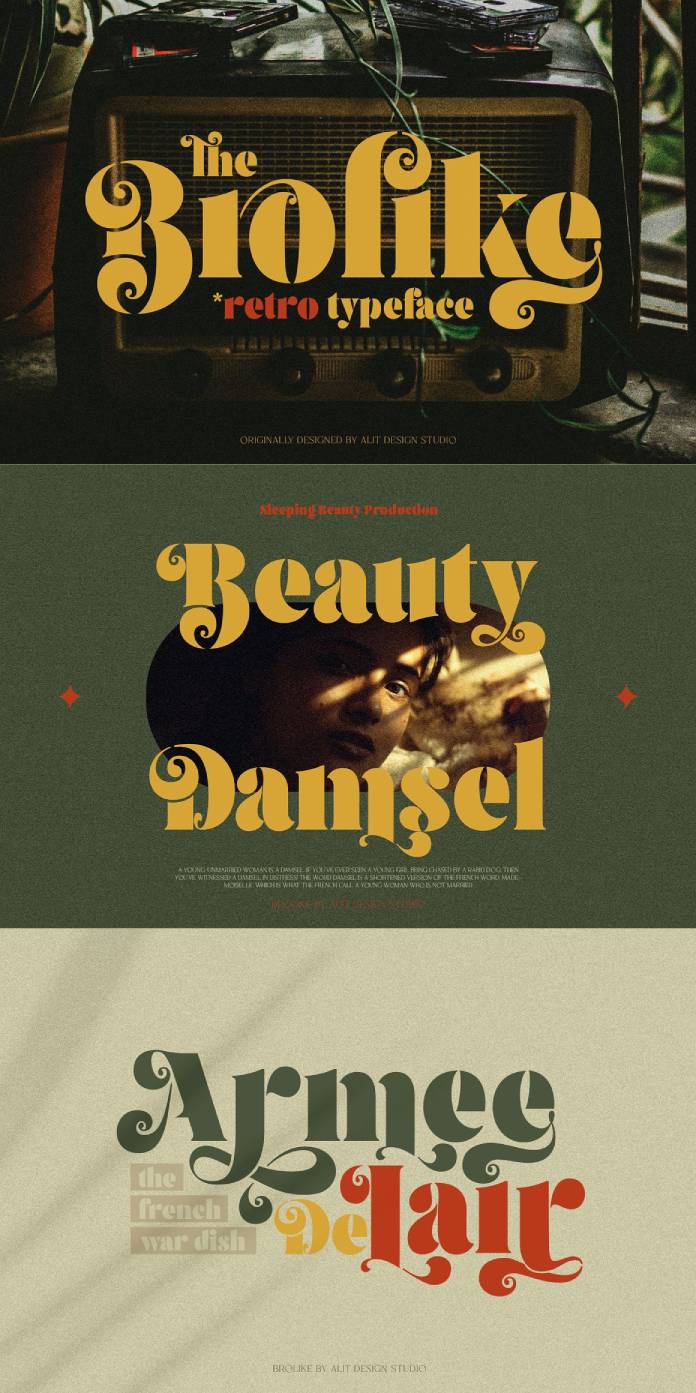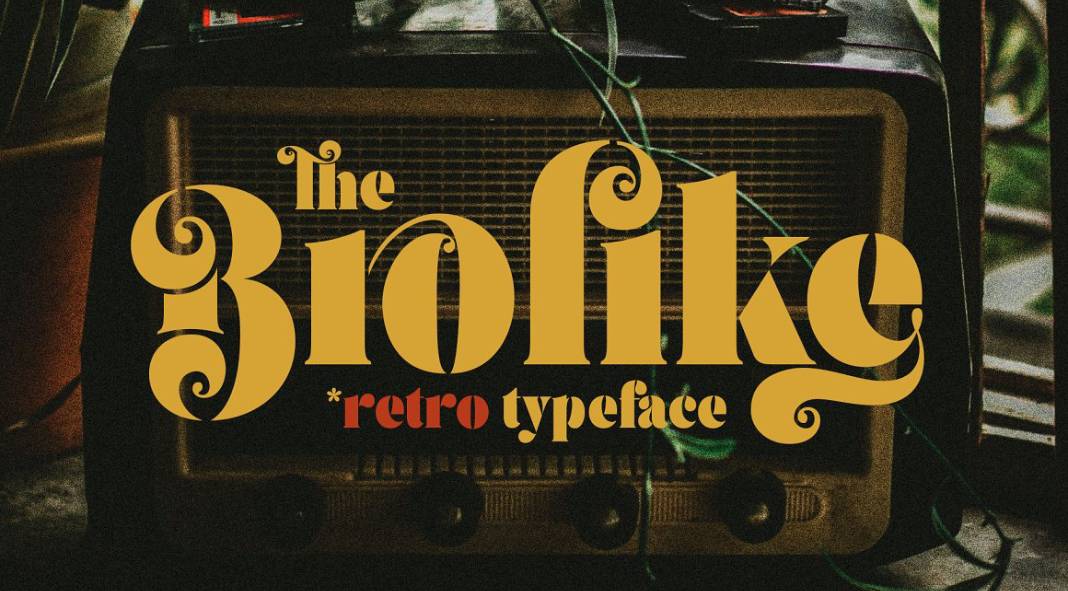
Check out the Brolike font, an elegant vintage typeface inspired by music album covers from the 1970s and 1980s.
Created by Alit Design, Brolike is a vintage font that provides a characteristic look combining retro influences with modern typographic trends. It comes with stylish swashes on alternative letters to give your design a unique appearance. You can use this retro display typeface for a wide range of work including headlines, logotypes, magazine covers, social media text overlays, retro poster designs, and more. Equipped with a total of 746 glyphs including symbols and alternate letters, the Brolike font supports multiple languages including Latin, Western European, Central European, South European, and Vietnamese.